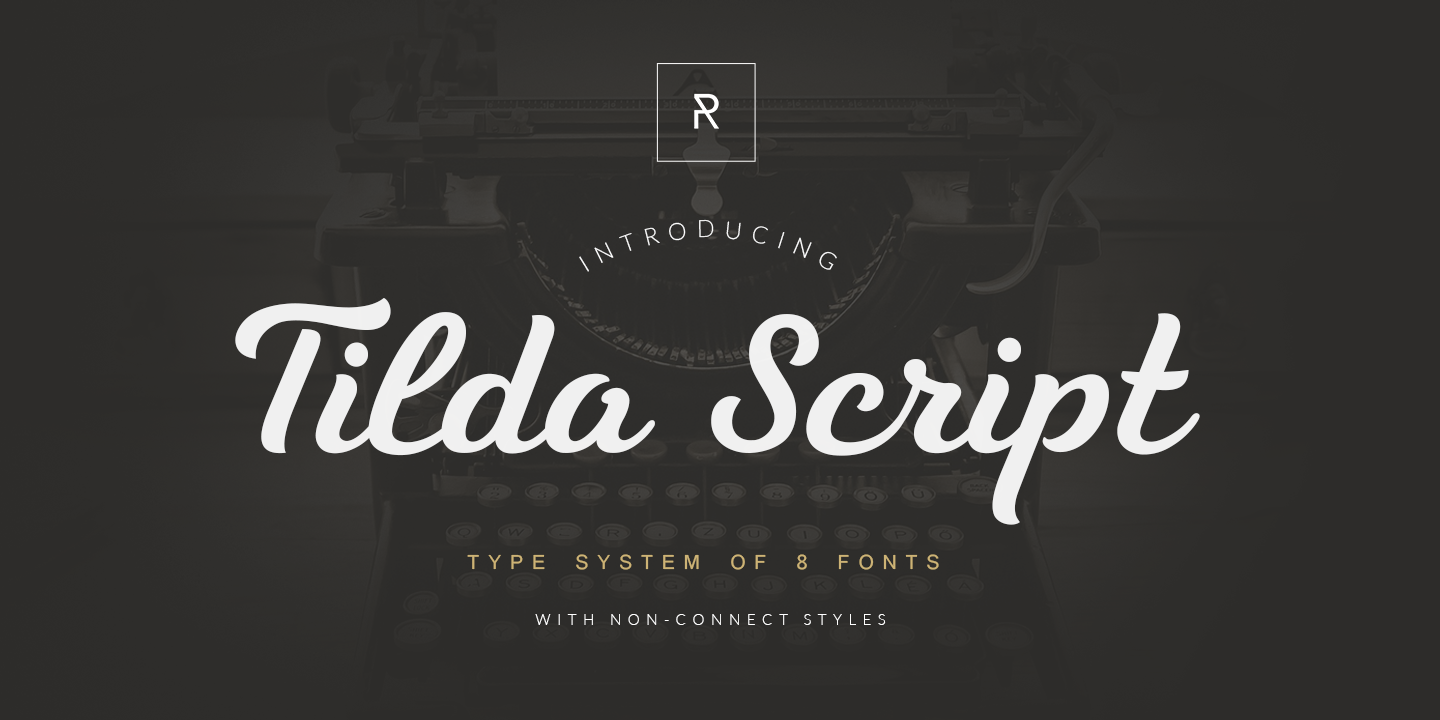
Tilda Script Font is perfect for elegant personal stationery, sophisticated calligraphy services, graceful feminine branding, refined beauty salon communications, delicate wedding invitations, intimate greeting cards, charming boutique signage, gentle lifestyle magazines, artistic handwriting workshops, and distinguished personal correspondence. This graceful typeface excels in applications where feminine elegance and script sophistication need to be communicated with flowing beauty and personal charm that embodies the essence of handwritten grace and the refined artistry found in traditional calligraphic excellence and feminine design sensibilities.
What makes Tilda Script Font exciting is its remarkable ability to capture the flowing elegance and personal intimacy of beautiful handwriting through its gracefully connected letterforms that seem to dance across the page with the natural rhythm and sophisticated charm that characterizes masterful script writing and elegant feminine expression. The font embodies the spirit of personal artistry with its fluid construction and calligraphically inspired proportions that suggest the careful attention to beauty and the refined sensibility that defines authentic script typography and handwritten elegance. Its delicately crafted character details and graceful personality create an atmosphere of intimate sophistication that resonates with women who appreciate refined beauty, elegant design, and the timeless appeal of sophisticated script typography in personal and professional communications.
The Tilda Script Font family typically includes Regular and Bold weights, each maintaining the signature script characteristics and feminine sophistication. Some versions offer enhanced swash variants with decorative flourishes, alternative character sets with elegant ligatures and script ornaments, and specialized treatments that amplify the calligraphic aesthetic. The family may also include condensed styles for efficient elegant layouts and display cuts optimized for maximum graceful impact in beauty and lifestyle applications requiring authentic script elegance and feminine charm.
Whether you're creating feminine brand identities, elegant lifestyle materials, or sophisticated personal communications, Tilda Script Font Free Download delivers the perfect script sophistication your elegance-focused projects deserve. Its graceful character and feminine styling make it an invaluable choice for beauty brands, calligraphy services, and elegant lifestyle businesses working in feminine beauty, script artistry, and elegant personal services sectors where authentic script elegance and refined feminine sophistication are essential for attracting discerning women who appreciate the timeless beauty and personal charm of elegant script typography and sophisticated calligraphic artistry.